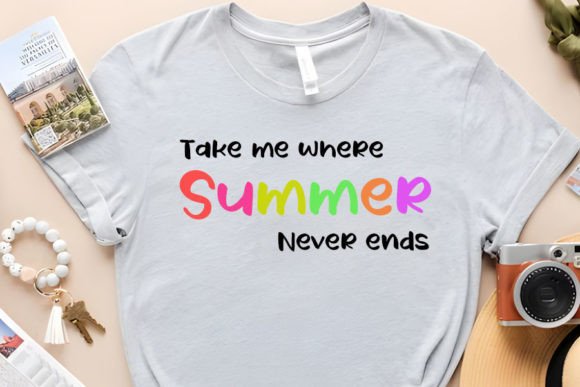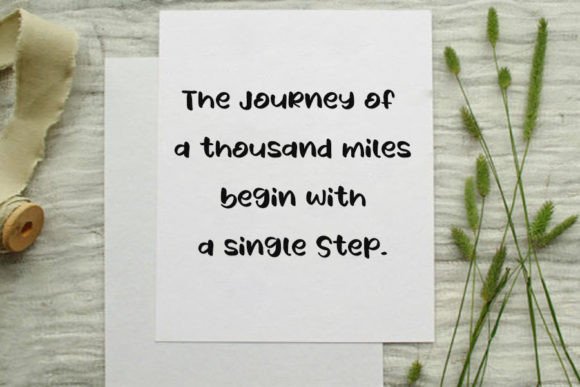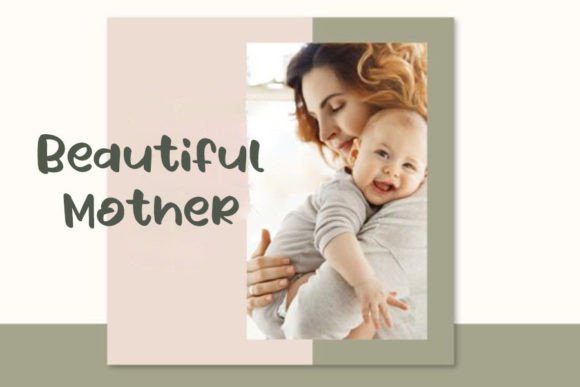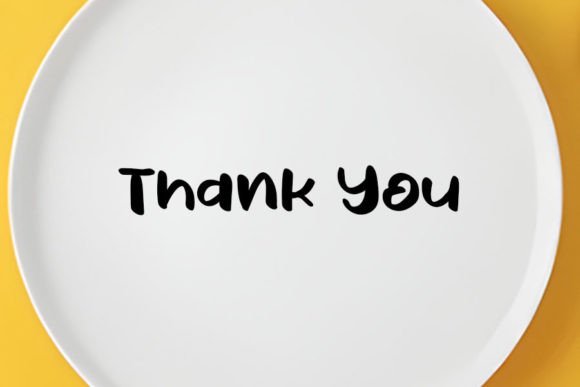
Introducing Happy Meals Font: The Perfect Handwritten Style for Chalkboard Quotes and Teaching Materials
Are you a designer, crafter, or educator looking for a font that can add a personal touch to your chalkboard quotes, teaching materials, or creative projects? Look no further than Happy Meals Font! This charming handwritten font is designed to bring a sense of authenticity and realism to your designs, making it perfect for anyone who wants to create engaging and visually appealing content.
What is Happy Meals Font?
Happy Meals Font is a unique and carefully crafted handwritten font that is inspired by the classic chalkboard writing style. Its authentic look and feel make it an ideal choice for creating chalkboard quotes, teaching materials, and other educational content. The font is designed to be highly legible and versatile, making it suitable for a wide range of applications, from classroom decorations to social media graphics.
Key Features of Happy Meals Font
- Authentic Handwritten Look: Happy Meals Font features a genuine handwritten style that is reminiscent of traditional chalkboard writing.
- Highly Legible: The font is designed to be easy to read, making it perfect for teaching materials, chalkboard quotes, and other educational content.
- Versatile: Happy Meals Font can be used for a wide range of applications, from classroom decorations to social media graphics.
Benefits of Using Happy Meals Font
Using Happy Meals Font can bring a range of benefits to your designs and teaching materials. Some of the key advantages of this font include:
- Personal Touch: Happy Meals Font adds a personal and realistic feel to your designs, making them more engaging and relatable.
- Improved Readability: The font’s clear and legible style makes it easy for readers to understand and absorb the information.
- Increased Creativity: Happy Meals Font can inspire creativity and imagination, making it perfect for brainstorming sessions, classroom activities, and creative projects.
- Time-Saving: The font is easy to use and can save you time and effort when creating teaching materials, chalkboard quotes, and other educational content.
Who Can Benefit from Happy Meals Font?
Happy Meals Font is an ideal choice for a wide range of individuals and groups, including:
- Teachers and Educators: The font is perfect for creating teaching materials, chalkboard quotes, and classroom decorations.
- Designers and Crafters: Happy Meals Font can be used for a variety of creative projects, from social media graphics to printable art.
- Parents and Homeschoolers: The font is great for creating educational materials and activities for kids.
- Marketing and Advertising Professionals: Happy Meals Font can be used to create eye-catching and engaging marketing materials.
Happy Meals Font is a unique and versatile handwritten font that is perfect for creating chalkboard quotes, teaching materials, and other educational content. Its authentic look and feel make it an ideal choice for designers, crafters, and educators who want to add a personal touch to their designs. With its highly legible style and ease of use, Happy Meals Font is a great addition to any creative project or teaching material.